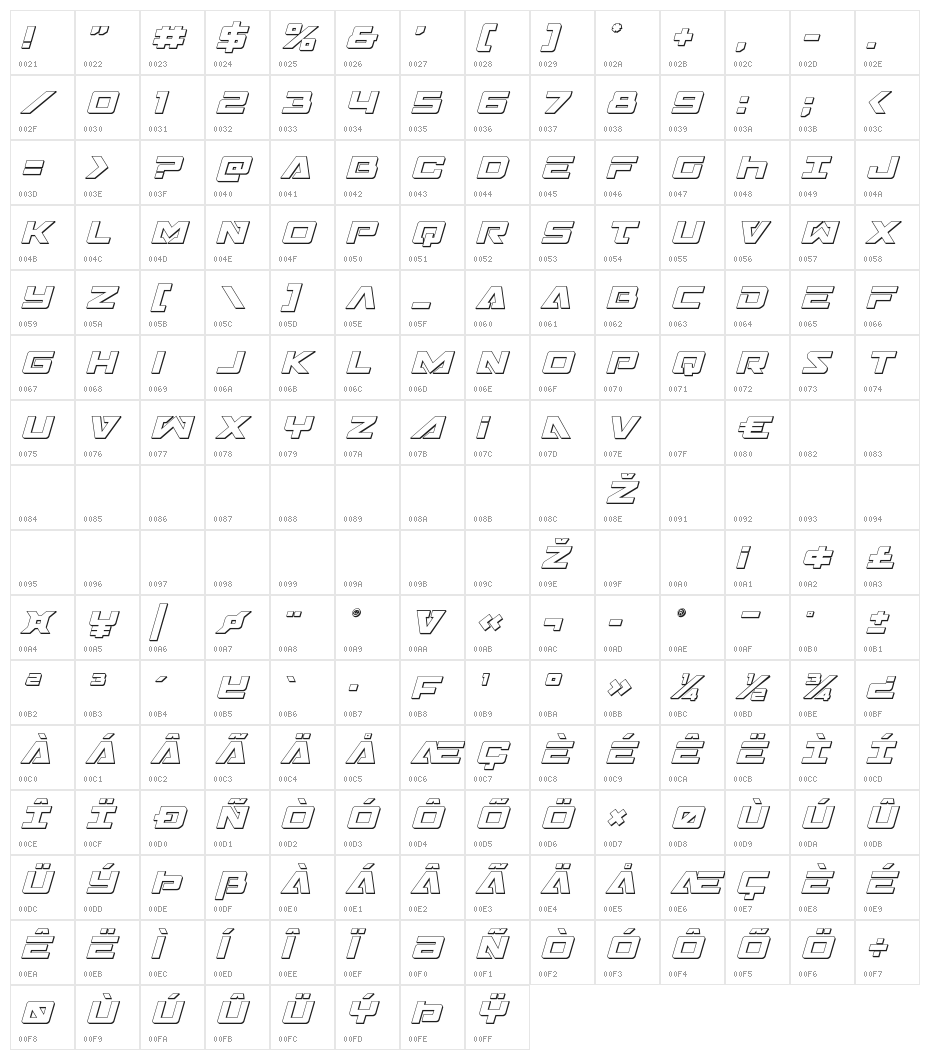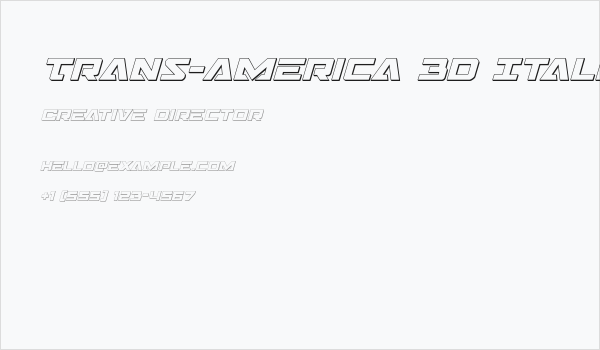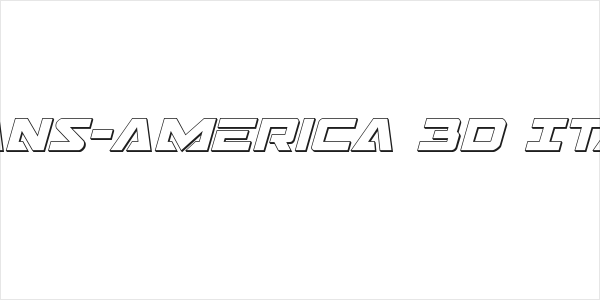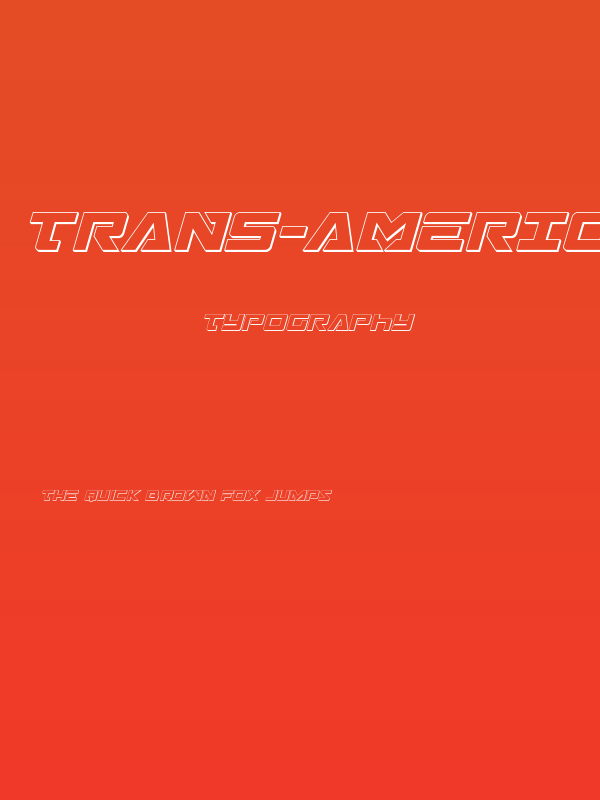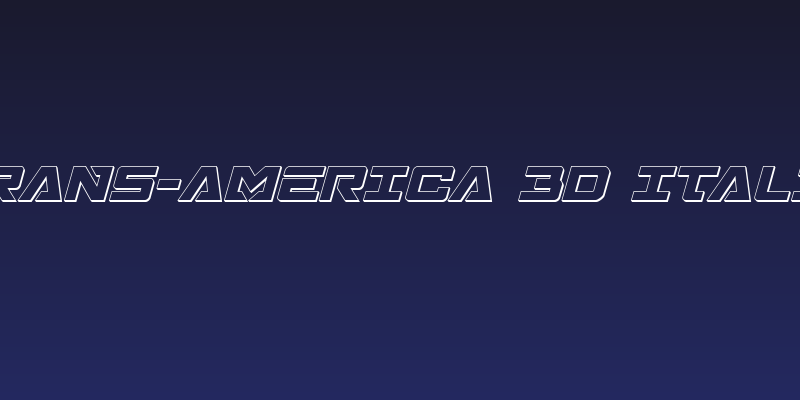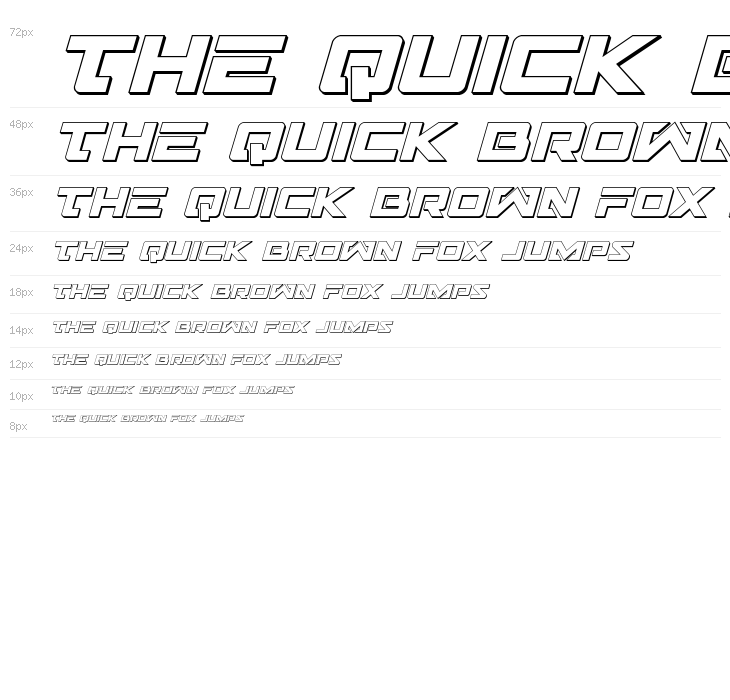
Trans-America 3D Italic Font
Trans-America 3D Italic Description
This font features a bold, three-dimensional design with an italicized slant, giving it a dynamic and futuristic appearance. The characters are outlined, creating a sense of depth and movement. The uppercase letters are angular with sharp edges, while the lowercase letters maintain a consistent style, enhancing the overall geometric look. Numbers and special characters follow the same design principles, ensuring uniformity across all elements. The font's unique style makes it ideal for projects that require a modern and eye-catching aesthetic.
Overall StyleFuturistic
Proposed ProjectsIdeal for sci-fi themed designs, video game titles, tech branding, and futuristic posters.